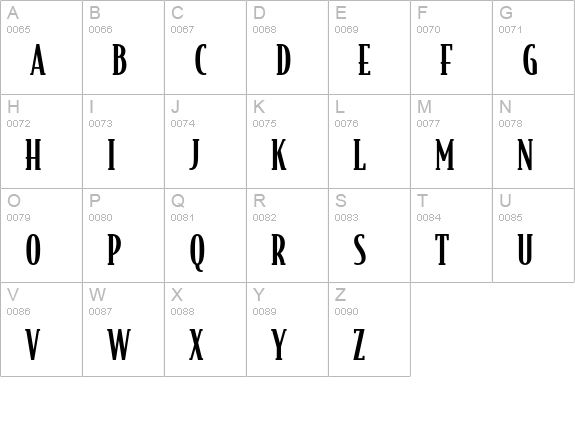
BodegaSerif-Medium is a balanced, medium-weight variant in the BodegaSerif typeface family \xE2\x80\x94 well suited to sub-headlines, navigation, and balanced editorial work.
BodegaSerif-Medium is a versatile and elegant font that exudes sophistication and timeless charm. Its classic serifs and medium weight make it perfect for a wide range of design projects, from branding to editorial layouts. Whether you're creating a vintage-inspired logo or designing a sleek magazine spread, BodegaSerif-Medium will add a touch of refinement to your work. This font is not only aesthetically pleasing but also incredibly practical, with excellent legibility in both print and digital formats. Its clean lines and balanced proportions ensure that your text will be easy to read, no matter the size or context. BodegaSerif-Medium strikes the perfect balance between classic and contemporary, making it a versatile choice for designers of all kinds. And the best part? BodegaSerif-Medium is available for free download at FontsMarket.com. That's right, you can add this exquisite font to your collection without spending a penny. So why wait? Enhance your design projects with the timeless beauty of BodegaSerif-Medium today!